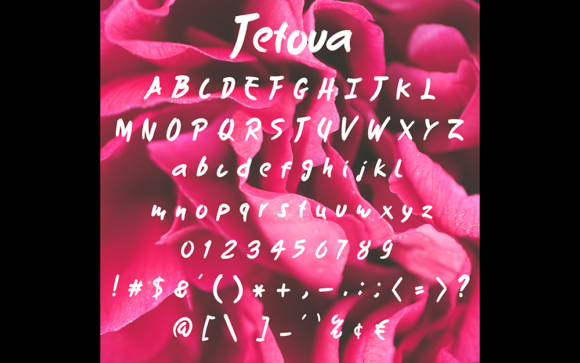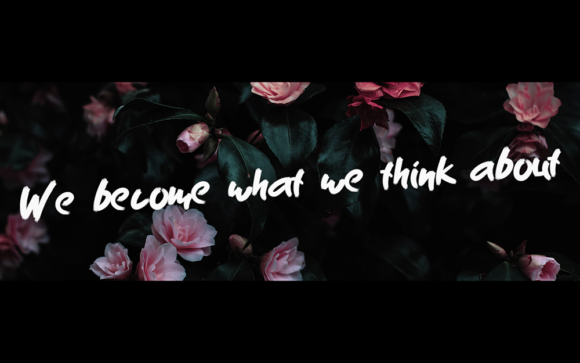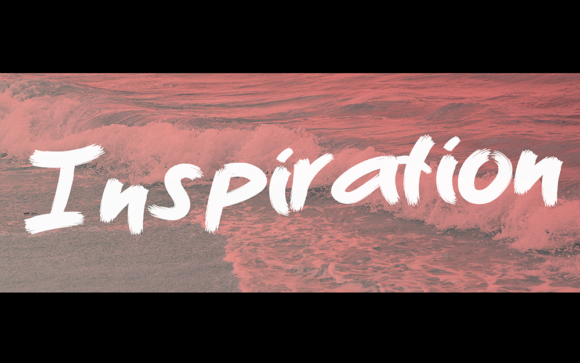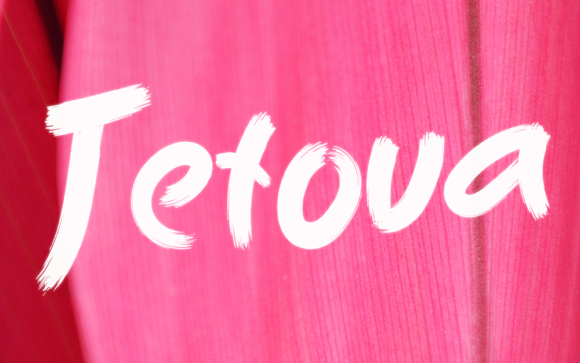
Tetova Font
The Tetova is a striking brush font. It has a great readability and can be used to make every design stand out.
It’s perfect for social media, Instagram posts, labeling, clothing, covers, and much more!